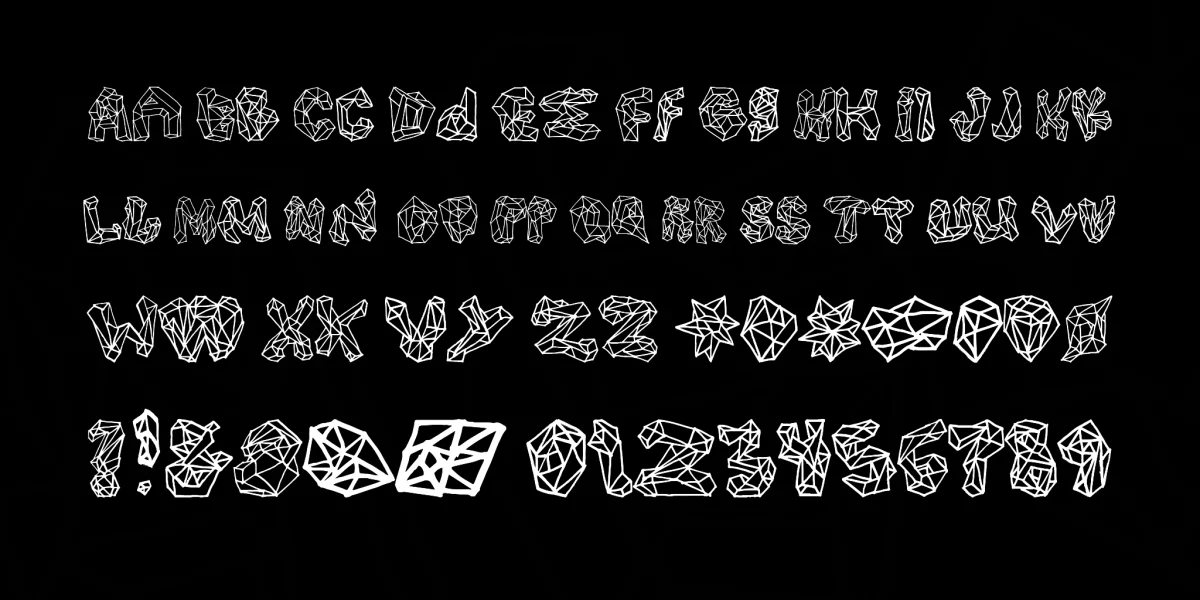
Polygons is a multi vertices crystalline typeface, inspired from structures found in minerals and crystals and constructed with loose discipline. The font is free for personal use only. If used for commercial use, please contact me at